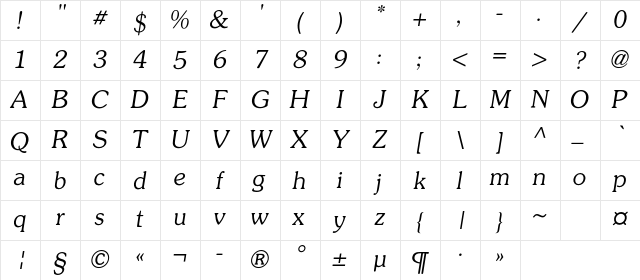
Complete AGPresquireC Italic glyph index. Displaying only characters natively supported by AGPresquireC Italic font.
AGPresquireC is a composed and adaptable typeface that performs quietly and consistently across a wide range of design contexts. The slanted form adds forward momentum and visual energy.
Pro Tip: Use AGPresquireC for emphasis, pull quotes, and subheadings where its slanted energy can add rhythm to the layout.